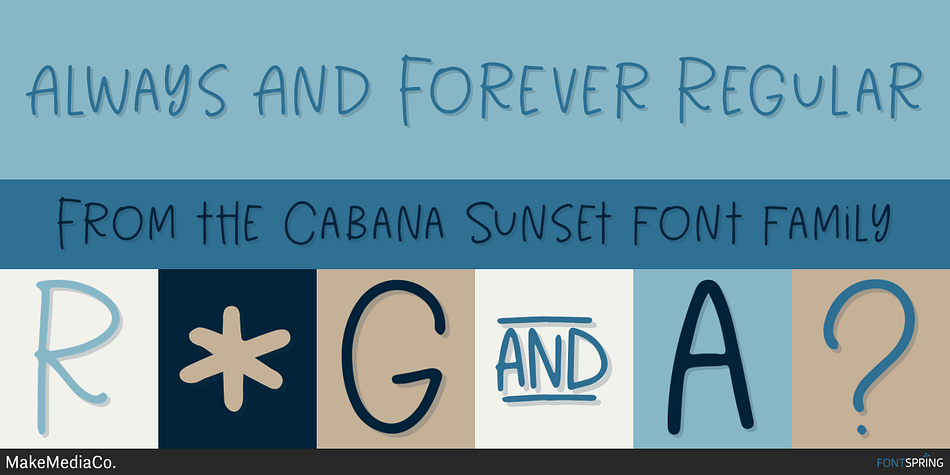
Always And Forever Regular
Cabana Sunset is an art deco, display sans and hand drawn font family. This typeface has thirteen styles and was published by MakeMediaCo.
• Please note: these fonts are hand drawn and vectorized, so they have a nature texture that isn’t 100% smooth. However, they should cut just fine with a Cricut or Silhouette machine.